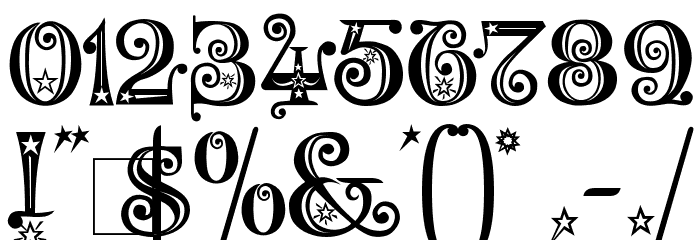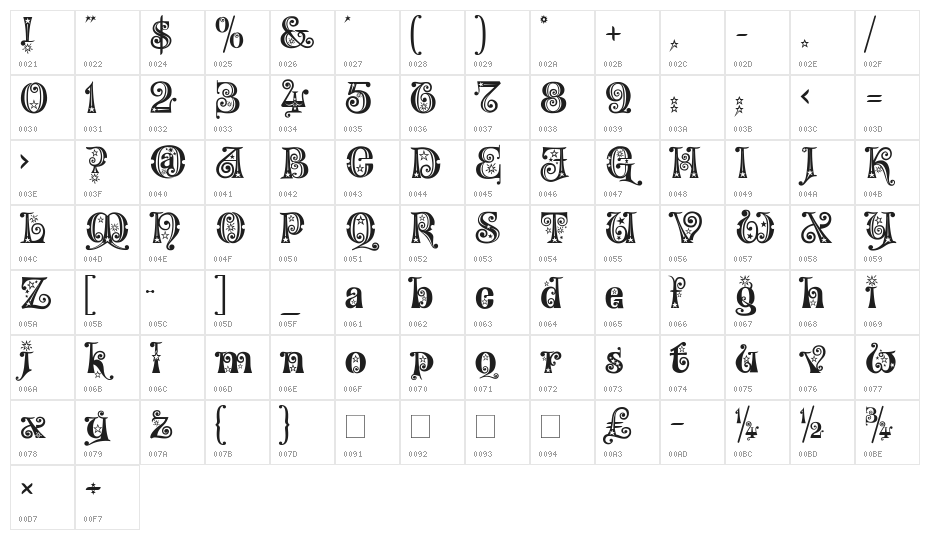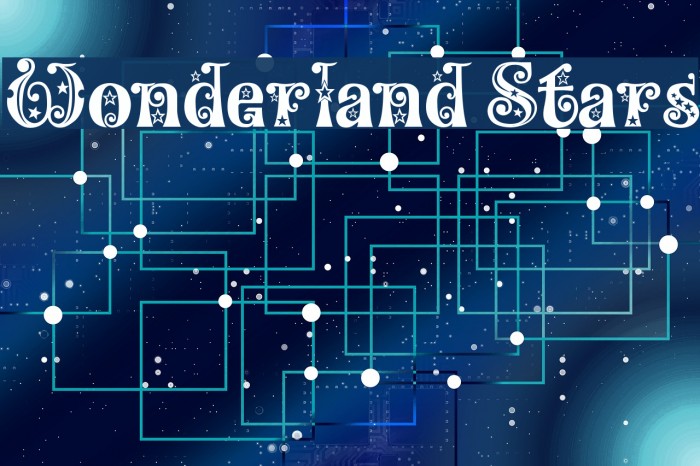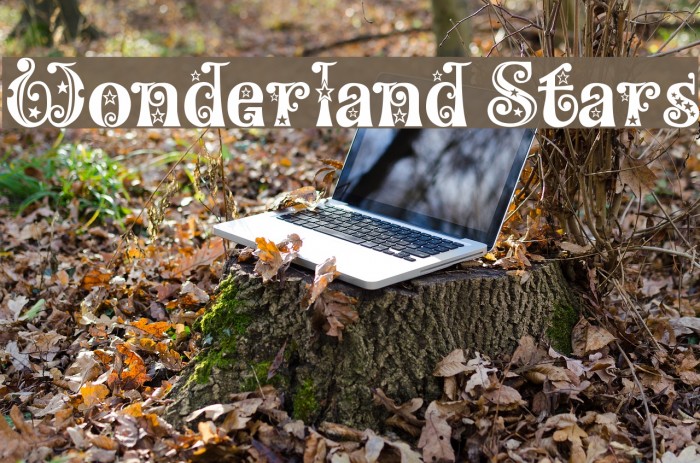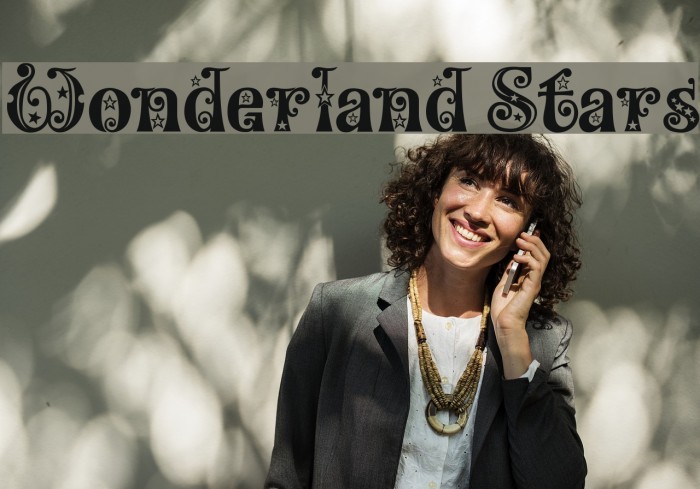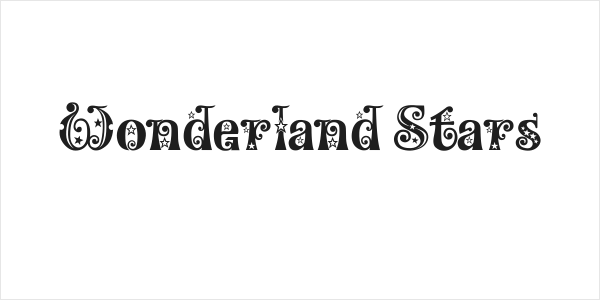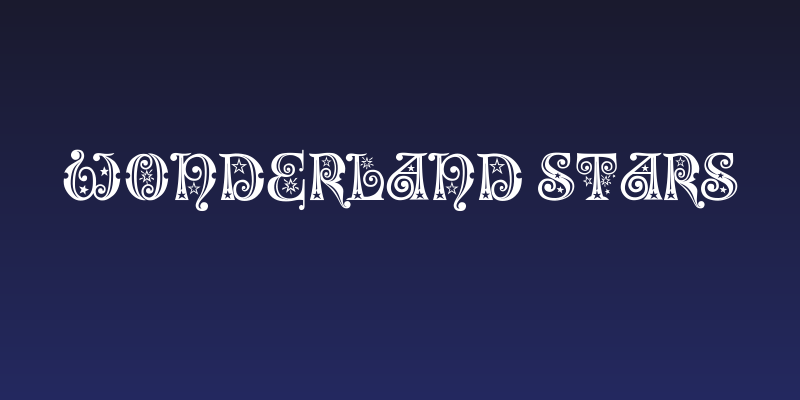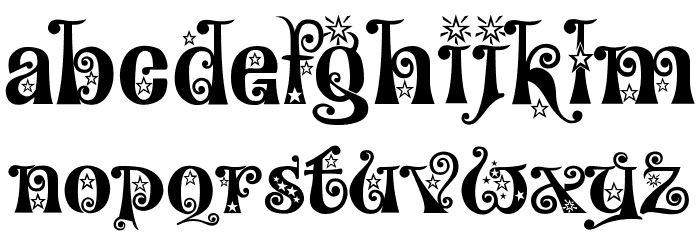
Wonderland Stars Font
Wonderland Stars Description
This whimsical and decorative font features a playful design with stars embedded within each character, creating a magical and enchanting appearance. The letters are bold and ornate, with swirling elements and intricate details that evoke a sense of wonder and fantasy. The uppercase and lowercase letters maintain a consistent style, while the numbers and special characters are equally adorned with star motifs and flourishes. This font is perfect for projects that aim to capture a sense of fun and creativity, making it ideal for children's books, fantasy-themed designs, or any project that requires a touch of whimsy.